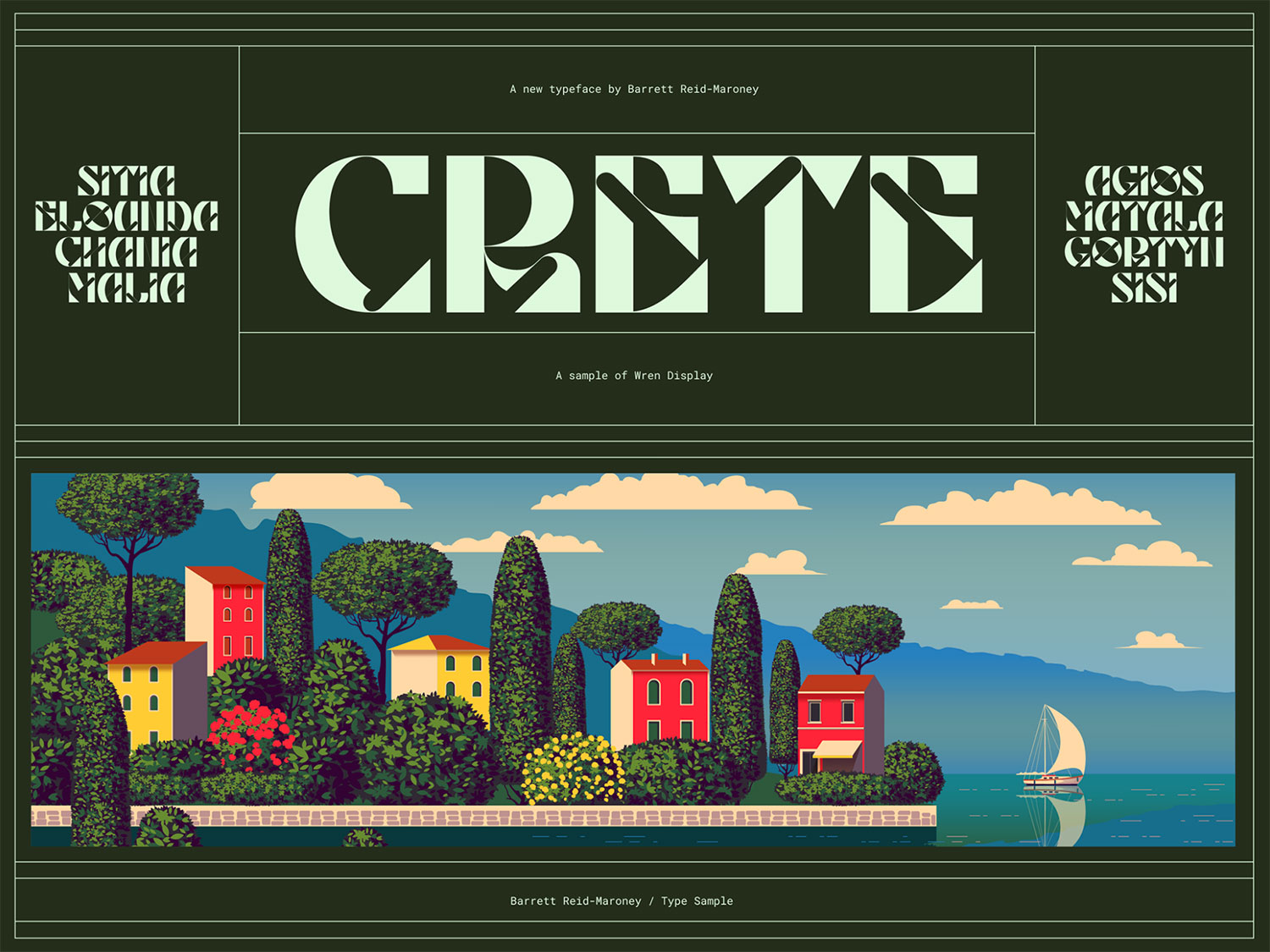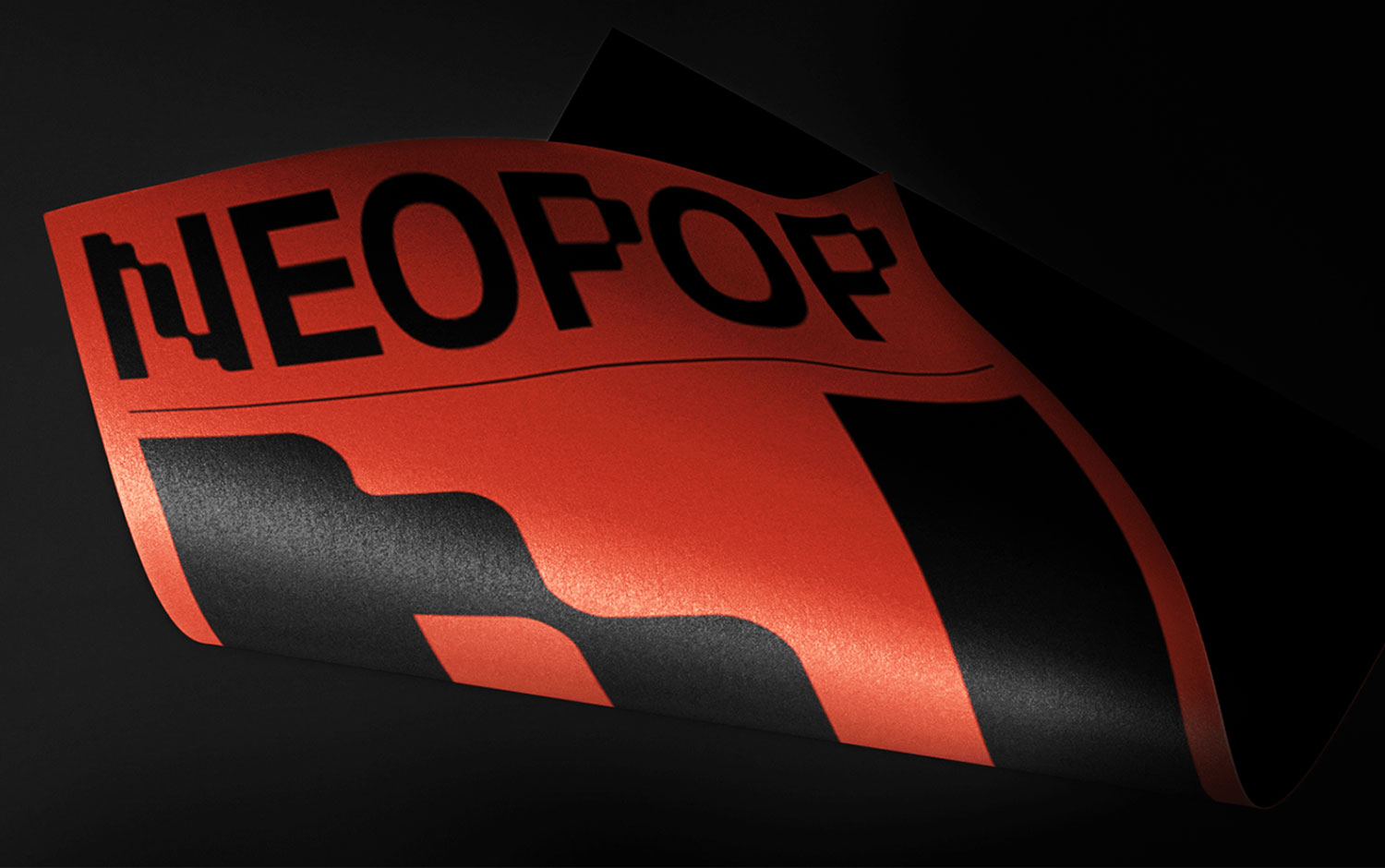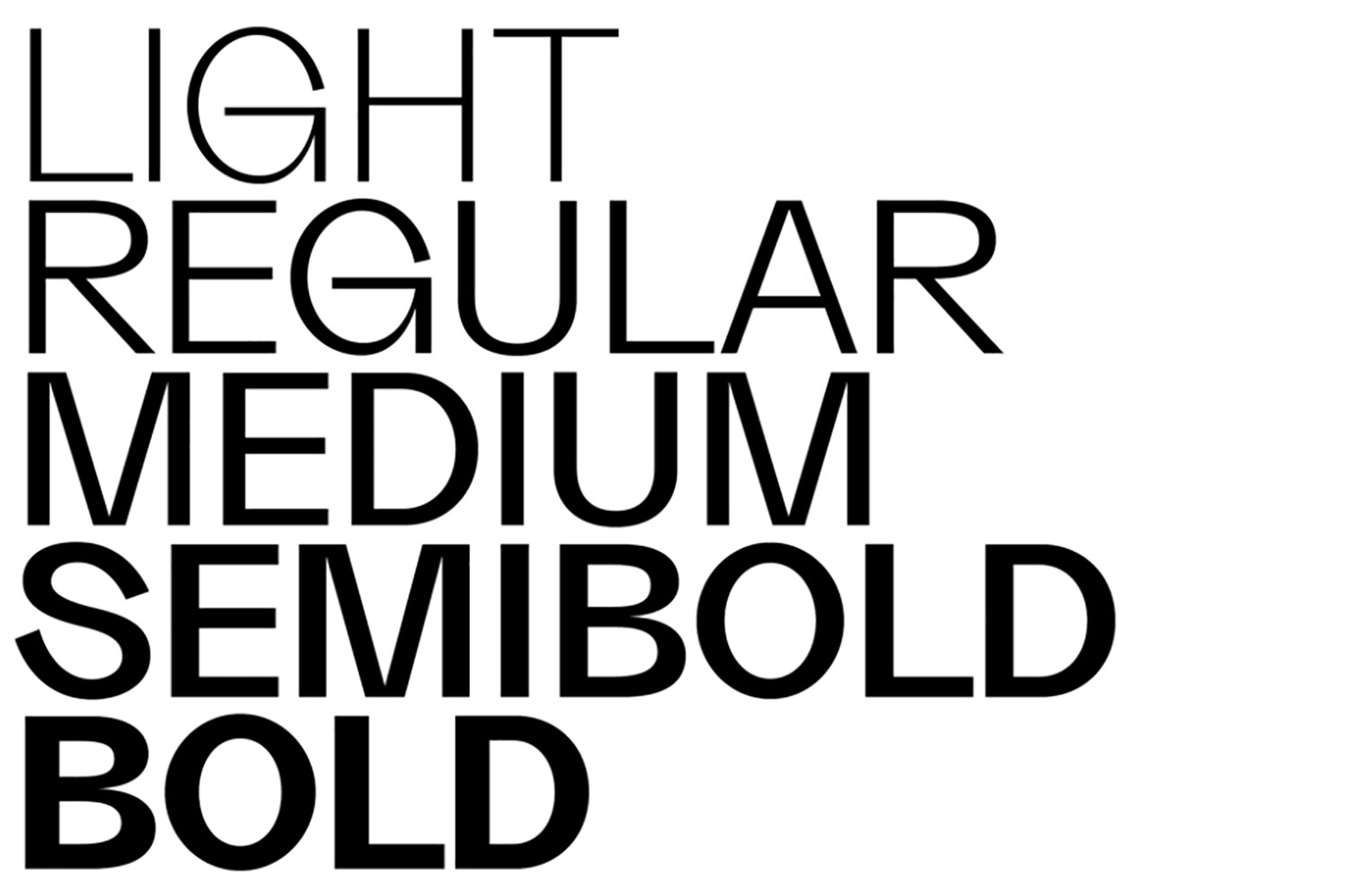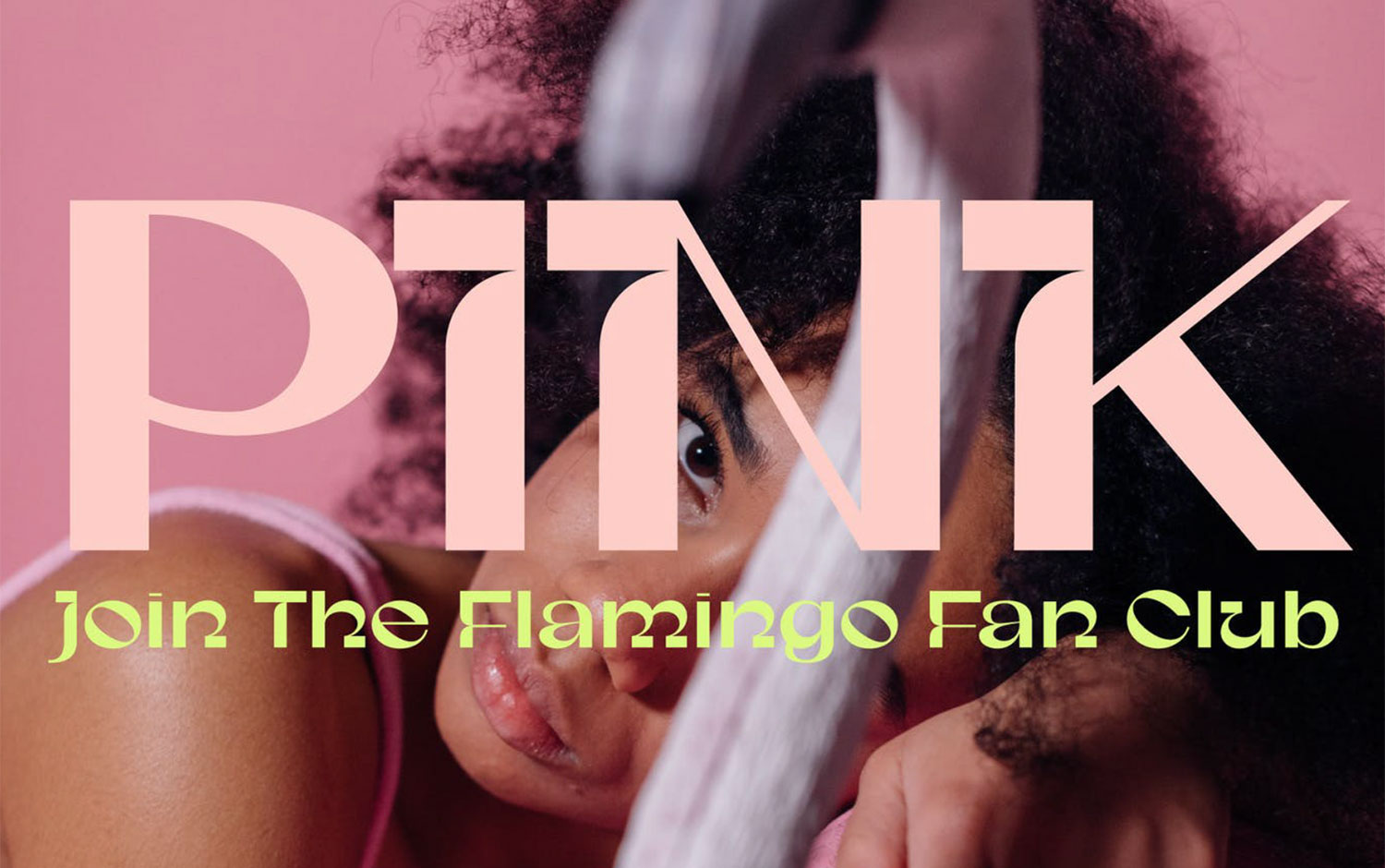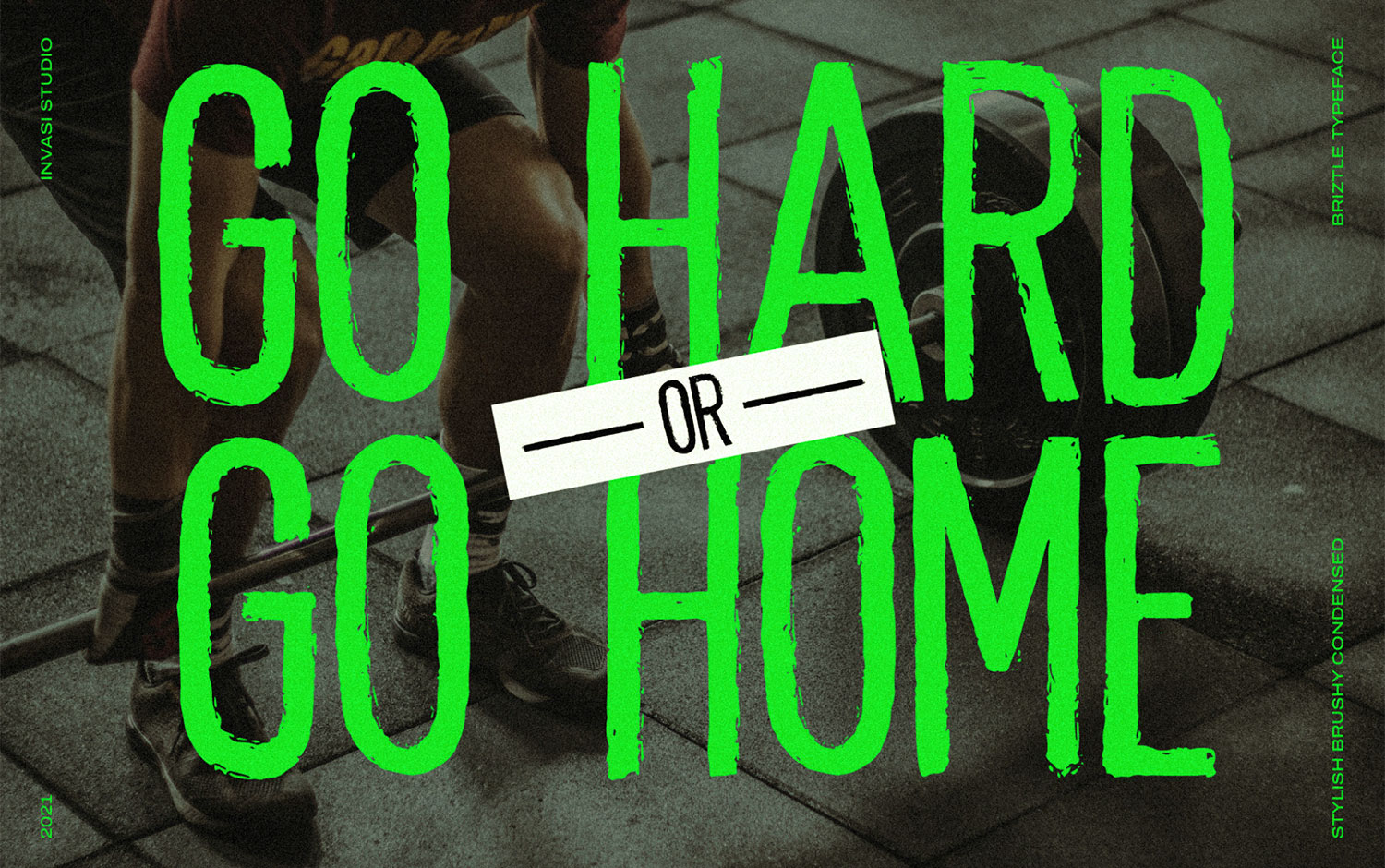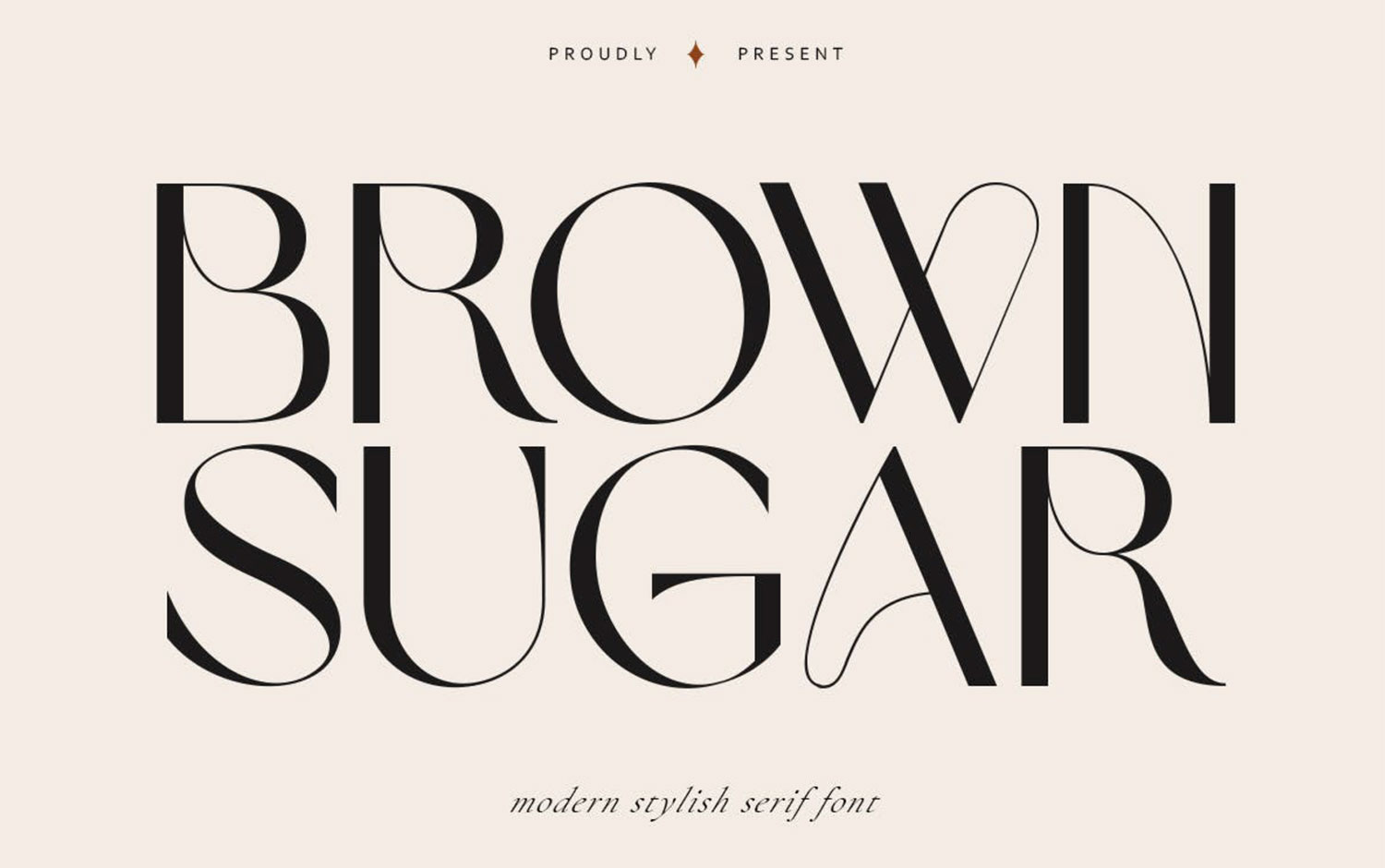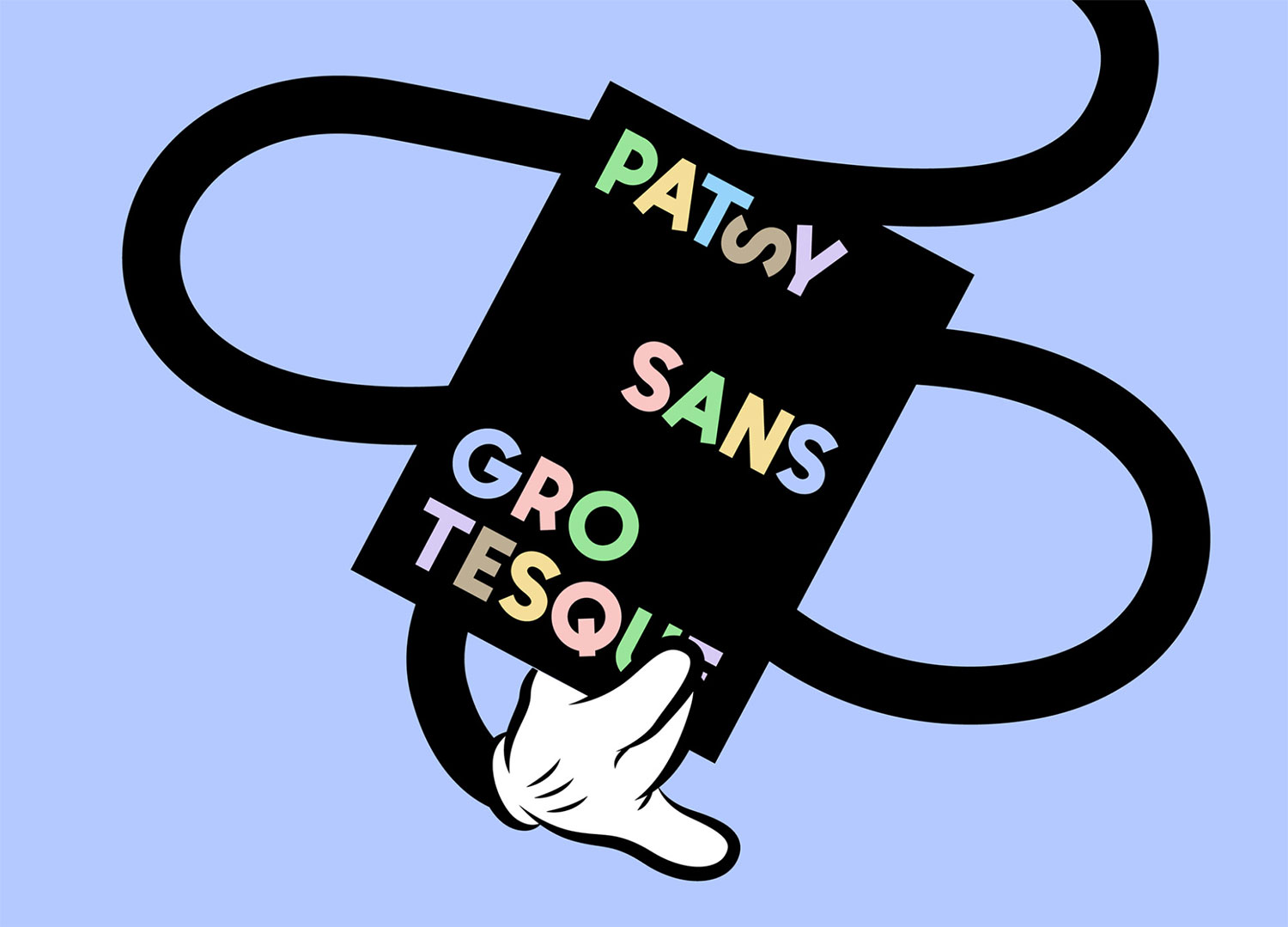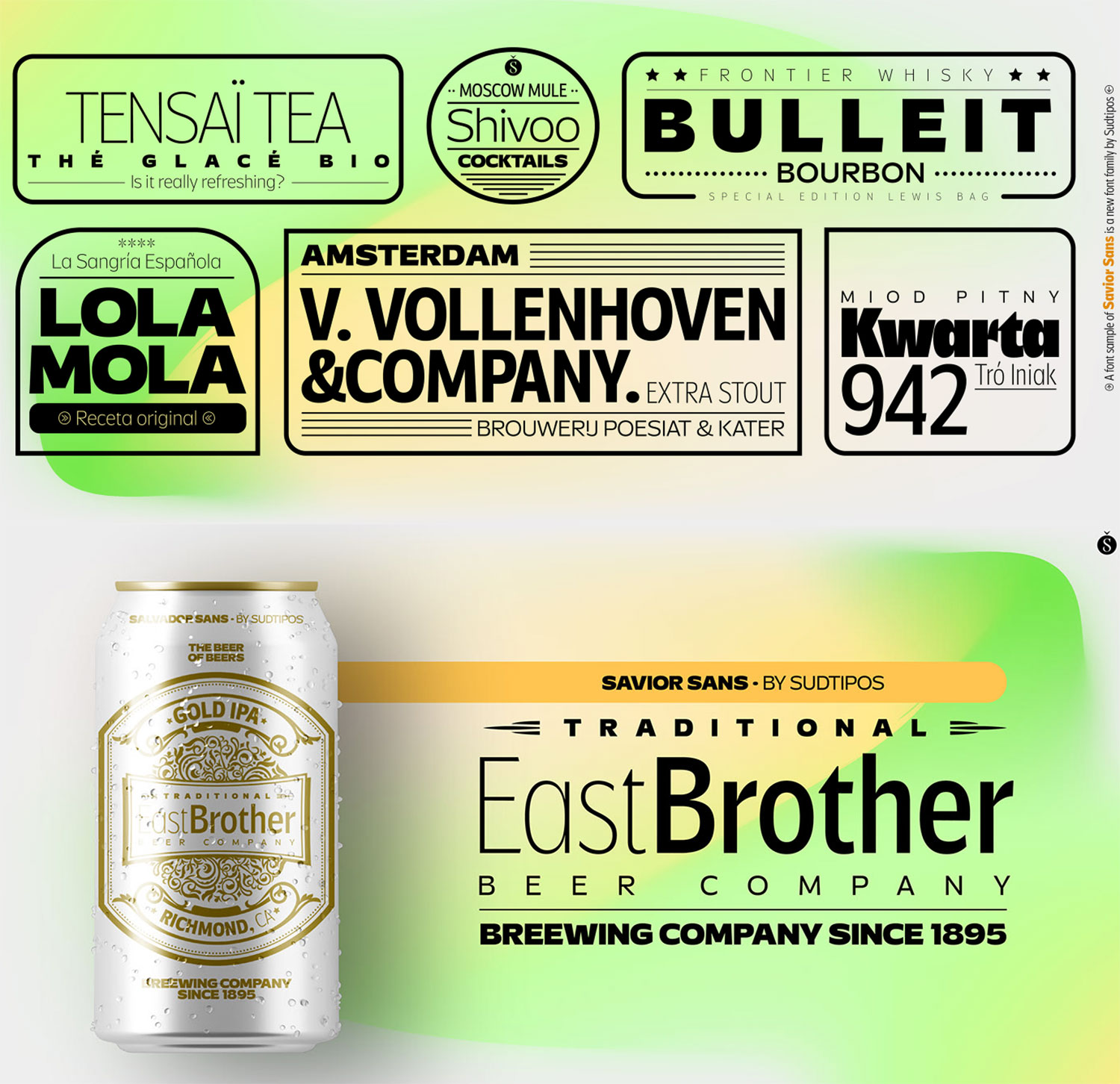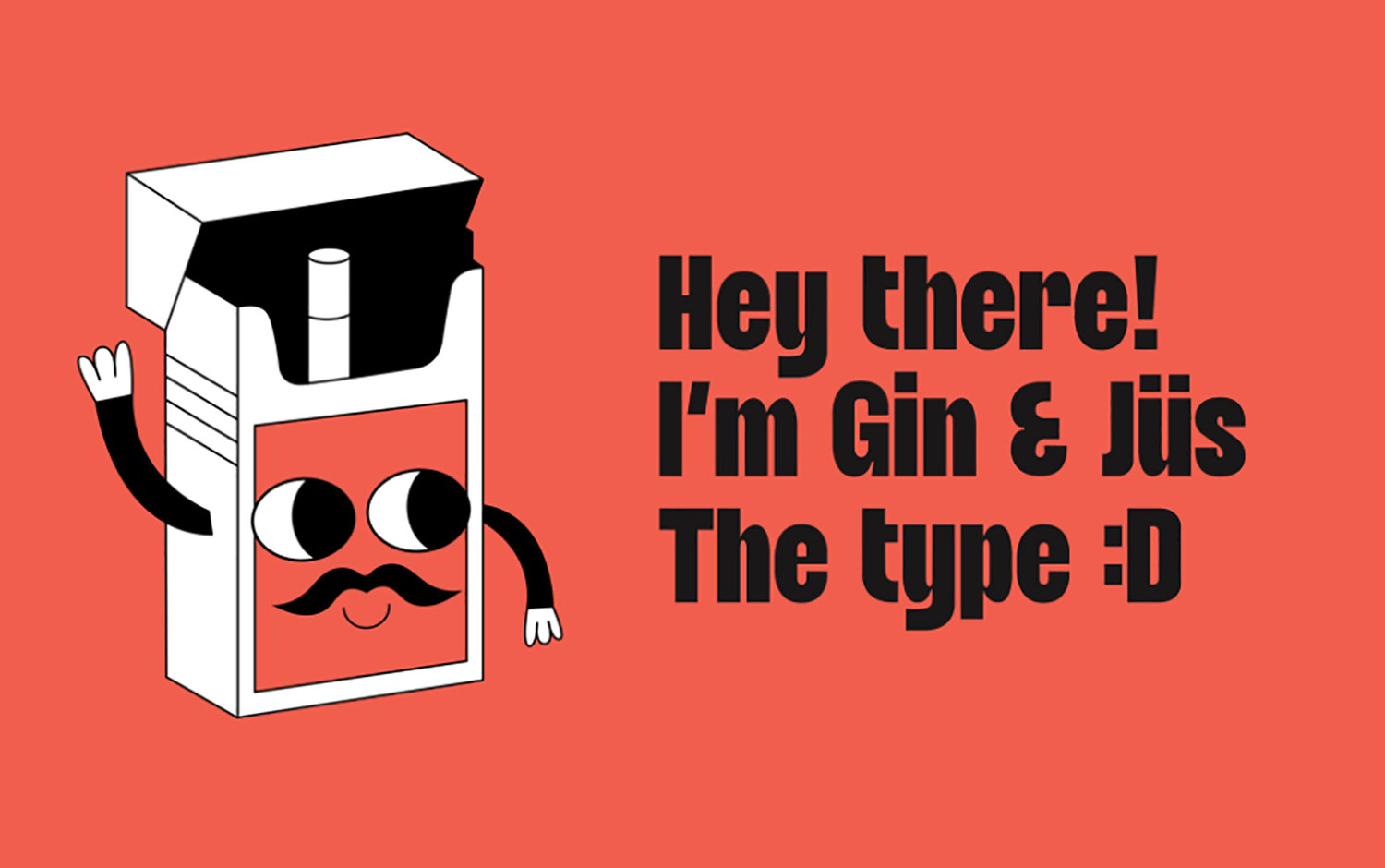
Top 10: New Fonts
Trends in fonts have been fluctuating during the last months until now. For granted, two flows set the path. There's grunge, funky, more grotesque way, and a fancy, ethereal serif side. A design antithesis is taking place. So, today we found ourselves in need to showcase and contrast these two different styles. Here to you, Top 10: New Fonts.
Classic vintage vibes and unique, thin-stroked fonts are today's currency when starting a new project. Mostly, the approach depends on our decision and the client's brief. Among this strong dichotomy, the influences inside each vary from time to time. Font designers or professionals in the subject might have witnessed or studied this scenario when two antagonist movements become contemporary. This week's inspirational curation was a big deal for some reason, we love font design, but we find it very hard to showcase them in a fair display. As it mostly depends on how designers have conceived to showcase their work. Usually, we enjoy immersing in the font's universe, colors and images. However, we also believe that an effective way to check how the font sticks with our design is to create a graphic piece that looks real within our work.
Wren Typeface by Barrett Reid-Maroney
Neopop Festival by Studio Bruto
Grotta Typeface by Alessio Pompadura & Massimiliano Vitti
Gunter Display Font by Harbor Bickmore
Briztle by Invasi Studio
Brown Sugar Font by Graphic Assets
Patsy Sans Grotesque Typeface by Vedran Vaskovic
Savior Sans by Vastago Studio
Kish Quirky Display Font by Fonts Design
Gin & Jüs by Kulturë Type